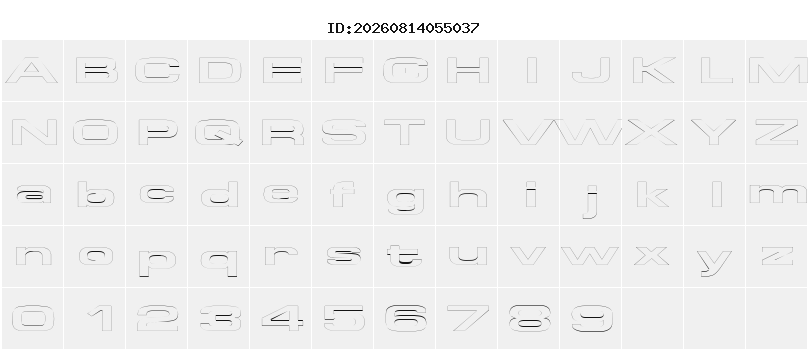
SupertouchOutline Preview
• Font Name: SupertouchOutline
• Full Font Name: SupertouchOutline
About SupertouchOutline.ttf
SupertouchOutline.ttf is a modern, elegant sans-serif font designed for ultimate readability and visual harmony. Perfect for branding, headlines, web design, and print materials.